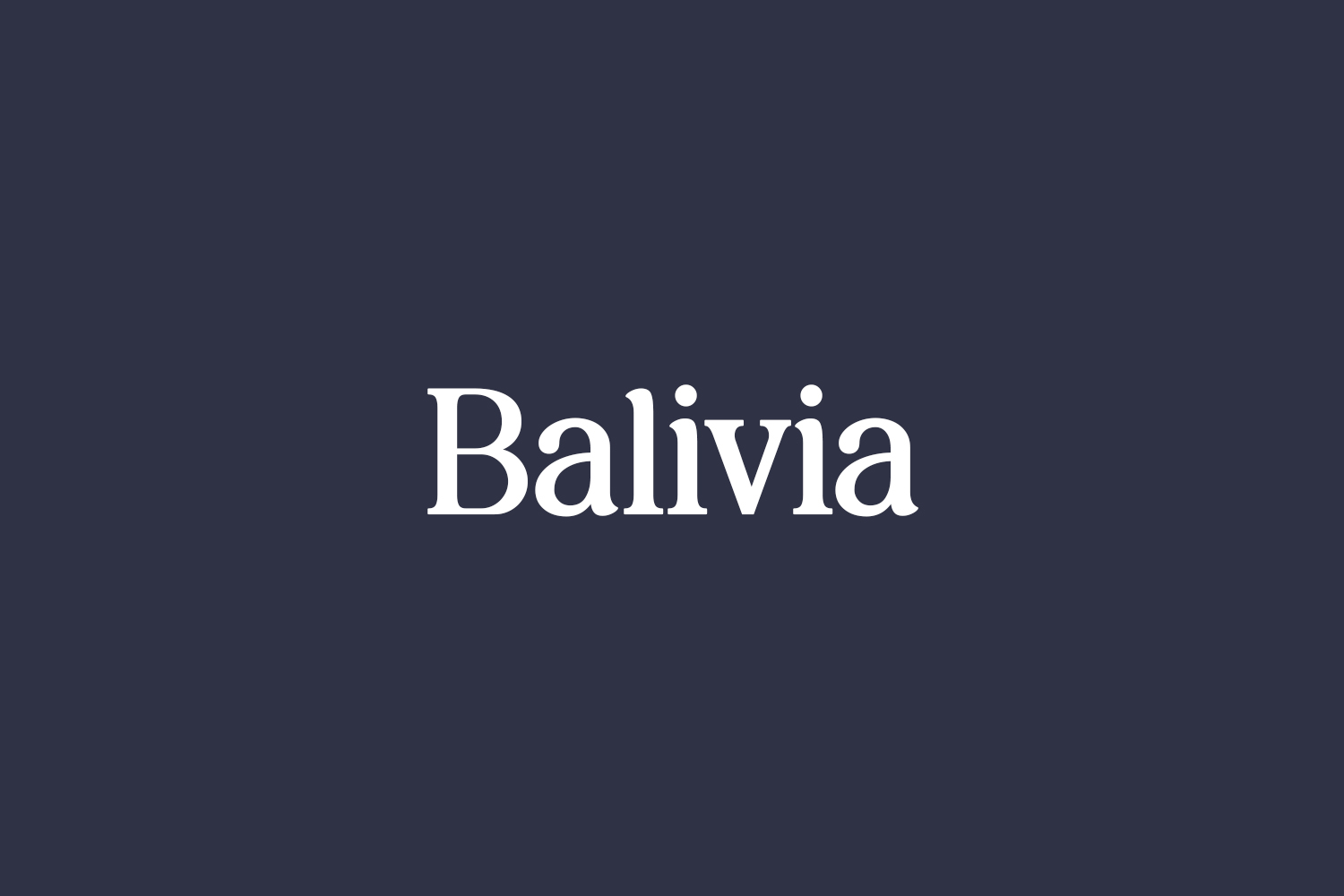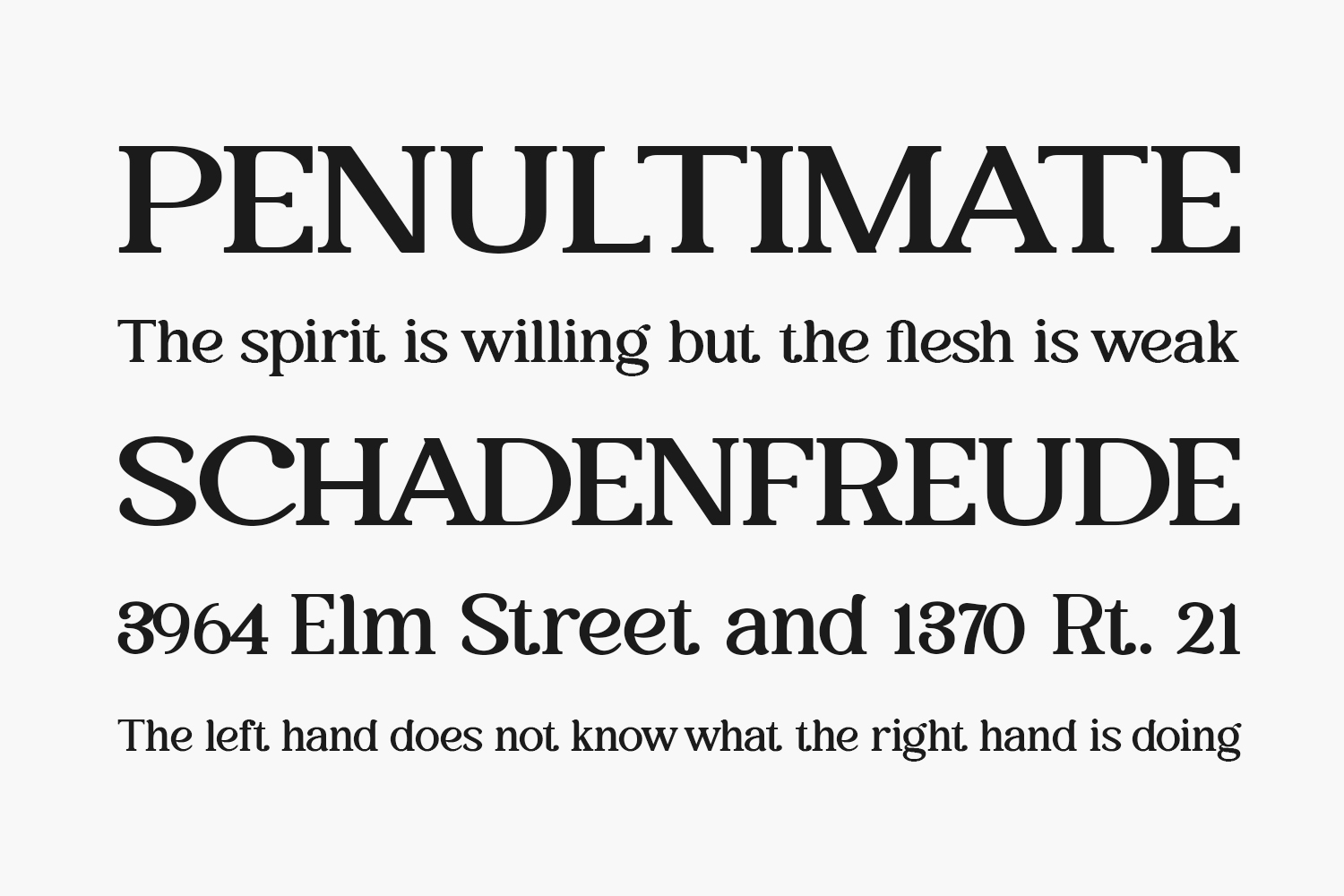
Balivia Free Font is a bold yet elegant serif font. Expertly designed to make your creation look out of this world, this font will look gorgeous on a variety of ideas. Balivia Free Font was designed by Ardyana Types and is free for personal use only. Please purchase the full version for commercial use.